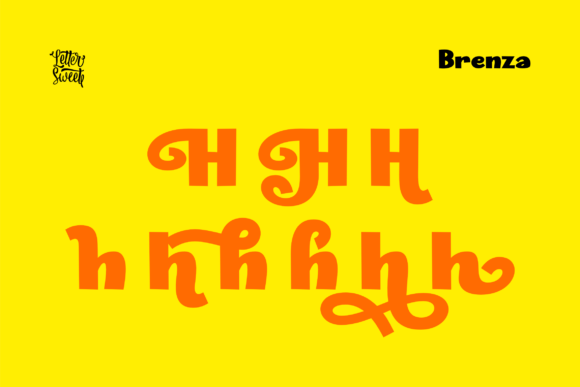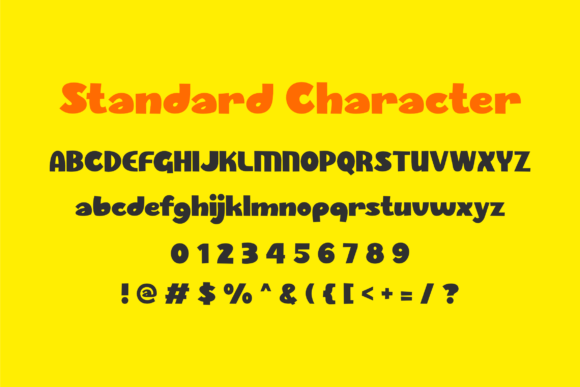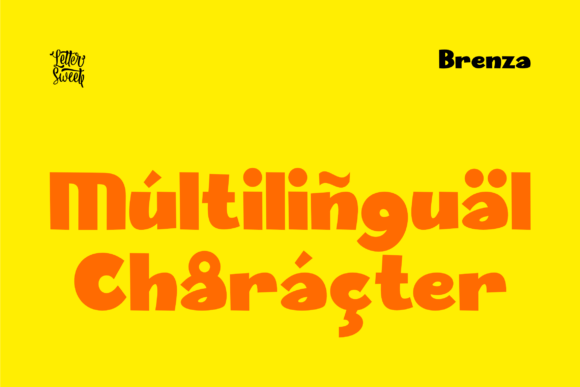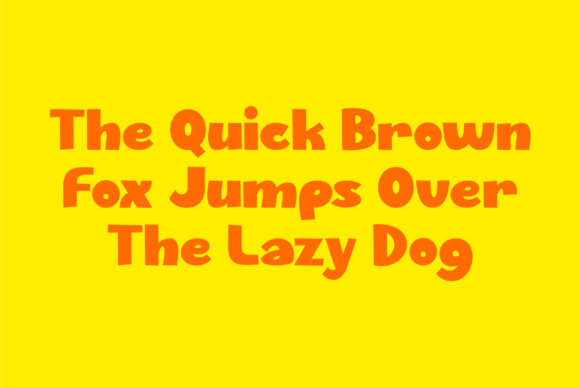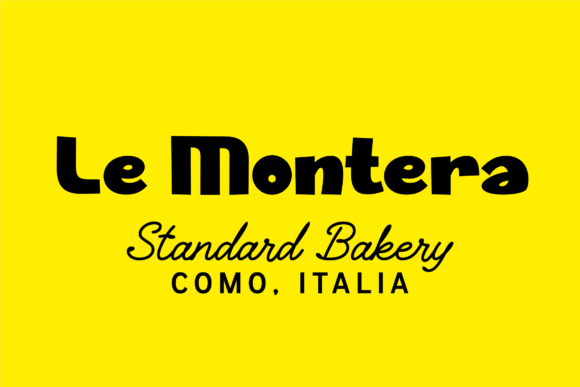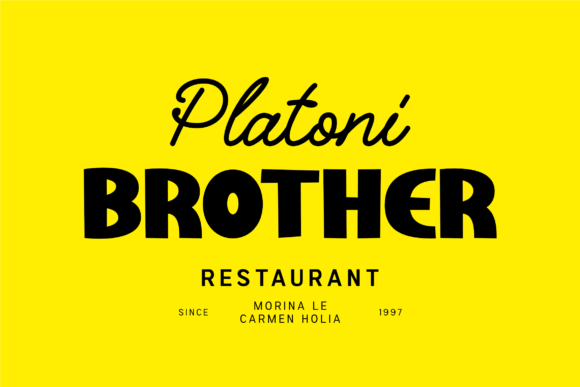
Get Ready to Make a Statement with Brenza Font
Have you ever stared at a blank canvas, trying to come up with the perfect design to capture the essence of your brand or project? You know, that moment when everything feels stagnant and you just need a spark of creativity to get your juices flowing?
That’s where Brenza Font comes in – a bold and playful display font designed to bring a burst of energy to your designs. With its thick letterforms, smooth curves, and unique decorative alternates, Brenza is the perfect tool to add a touch of whimsy and personality to your work. Whether you’re a seasoned designer or just starting out, Brenza Font is an invaluable asset to have in your toolkit, offering a wide range of features and versatility that will help you stand out in a crowded design landscape.
Brenza Font Key Features
- Font Family: Brenza Font comes in multiple font families, including Regular, Italic, Bold, and Bold Italic.
- Character Set: The font supports a wide range of languages, including Latin, Cyrillic, and Greek alphabets.
- Font Size and Resolution: Brenza Font is designed to work well at various font sizes, from 8pt to 72pt, and is optimized for resolutions up to 300 DPI.
- Unique Characteristics: Brenza Font features a unique blend of modern and traditional design elements, with a distinctive flair and elegance.
- Font Metrics: The font has an x-height of 500, an ascender height of 750, and a descender height of 250, making it suitable for various typography applications.
Brenza Font Review
I recently had the chance to work with the Brenza Font, and I must say, it’s a unique and intriguing addition to any design project. ✨ One of the things that stands out about Brenza is its eclectic mix of vintage and modern elements. The font is perfect for projects that require a touch of nostalgia, but also need to be attention-grabbing.
- Wide range of styles and weights, allowing for a lot of flexibility in design.
- Unique blend of vintage and modern elements, making it perfect for a wide range of projects.
- Excellent for use in titles and headings, where the font’s distinctiveness can really shine.
That being said, there are some limitations to consider. ⚠️ For one, Brenza can be a bit overwhelming in large blocks of text, so it’s best to use it sparingly. Additionally, some of the font’s more ornate styles can be difficult to read at smaller sizes.
Overall, I think Brenza is a solid addition to any designer’s toolkit. While it may not be suitable for every project, it’s definitely worth considering for anything that requires a unique and attention-grabbing look.
Getting the Most Out of Brenza Font
To get the most out of Brenza Font, use it in combination with other design elements, such as images, shapes, and colors. Experiment with different font sizes, colors, and styles to create a unique look. Use Brenza Font to add a touch of elegance and sophistication to your designs.